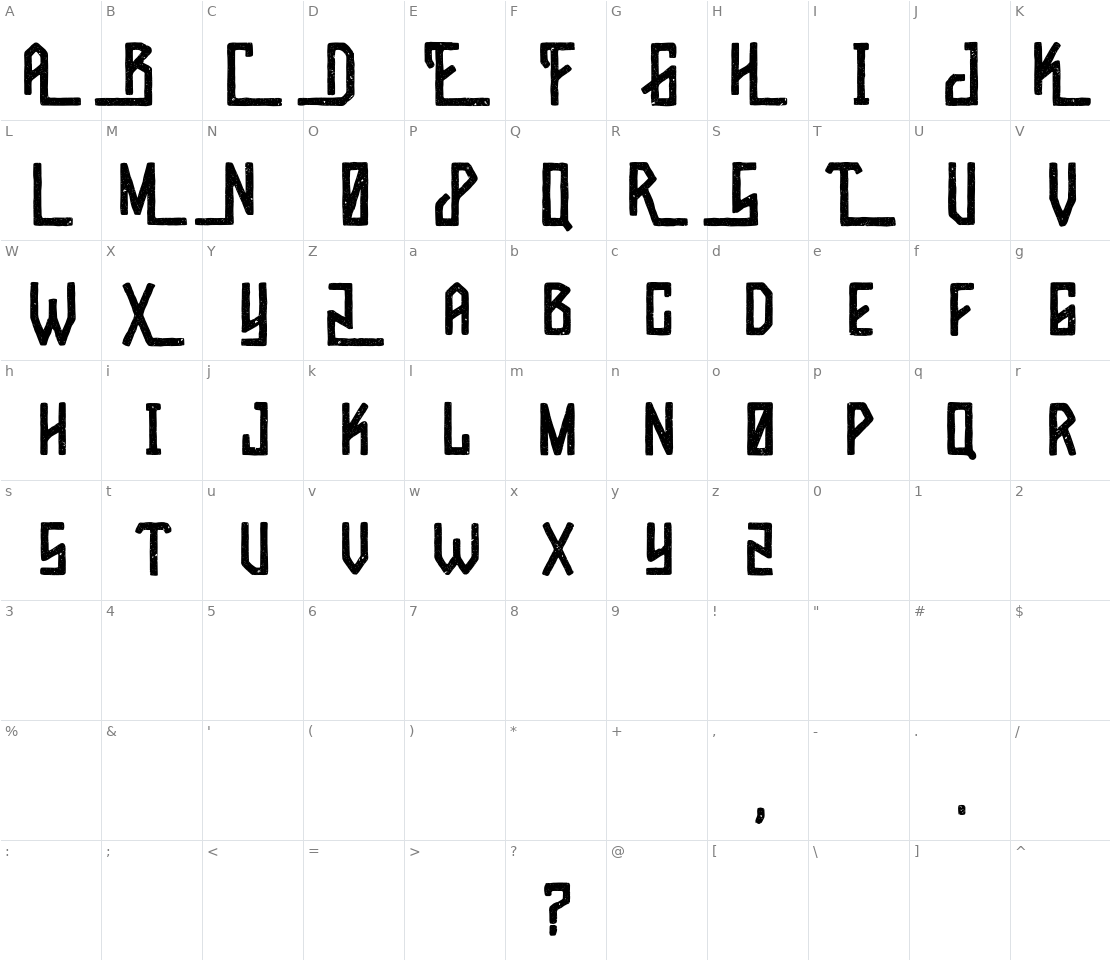
Wild River
Wild River is a condensed, uppercase display face from madeDeduk with rough, hand-drawn letterforms that feel weathered and unapologetically raw. The bold strokes and distressed edges give it a rustic, grunge-inflected personality, like signage left out in the elements for a few seasons. Built for headlines, posters, and branding where you want something that feels physical and lived-in rather than polished.